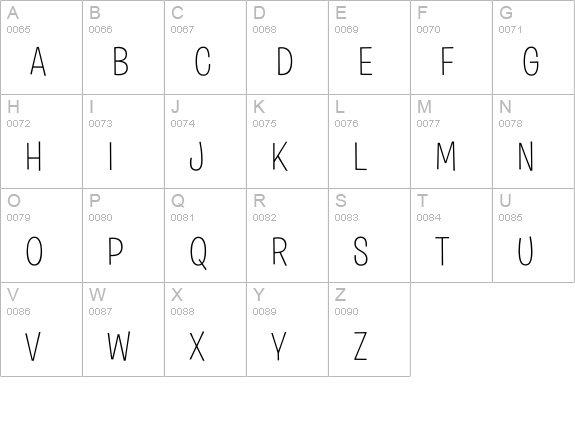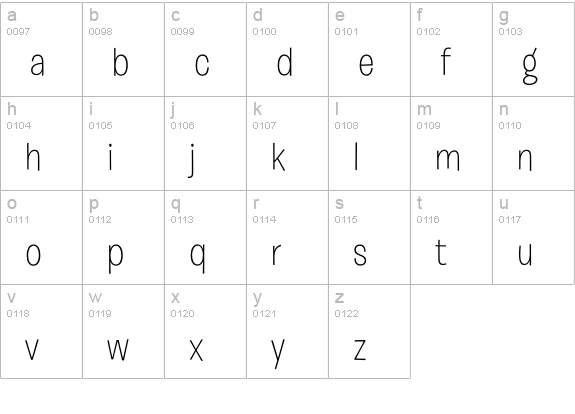
Burbank Big Regular Light is the standard, neutral variant in the Burbank typeface family \xE2\x80\x94 well suited to general body text, paragraphs, and standard typographic work.
Burbank Big Regular Light font is a modern and sleek typeface that exudes elegance and sophistication. Its clean lines and balanced proportions make it ideal for a variety of design projects, from branding to editorial layouts. The light weight of the font adds a touch of delicacy and refinement, making it perfect for creating a sophisticated and polished look. And the best part? Burbank Big Regular Light font is available for free download at FontsMarket.com. So you can easily access this stylish font and elevate your designs without any cost. Whether you're working on a professional project or a personal creative endeavor, Burbank Big Regular Light font is sure to add a touch of class and sophistication to your work. Download it now and start creating stunning designs with this versatile and elegant typeface.